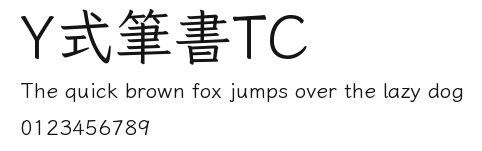
• Font Name: Y式筆書TC
• Designer: Fontworks Inc.
Y式筆書TC.ttf is a modern, elegant sans-serif font designed for ultimate readability and visual harmony. Perfect for branding, headlines, web design, and print materials.